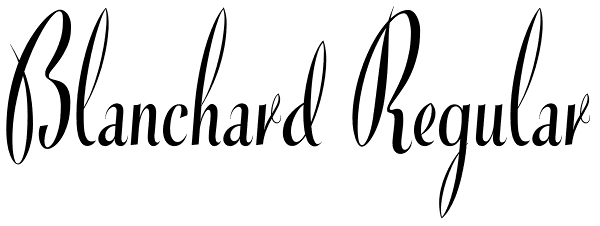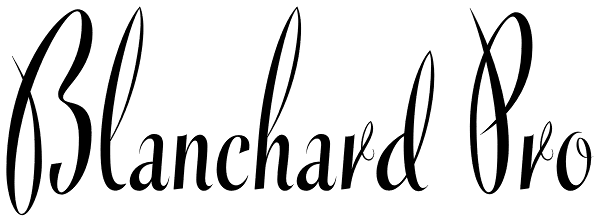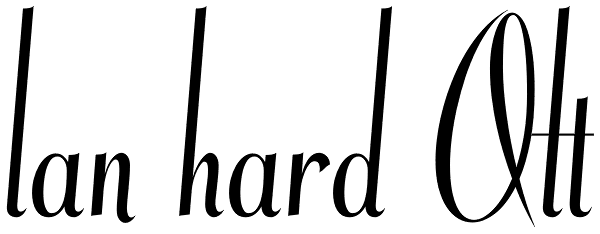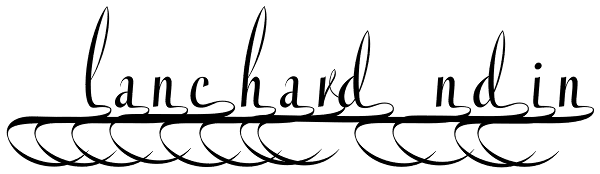
Blanchard
Blanchard is a revival and elaborate extension of Muriel, a 1950 metal face made by Joan Trochut-Blanchard for the Fonderie Typographique Française, that was published simultaneously by the Spanish Gans foundry under the name Juventud. Blanchard is...